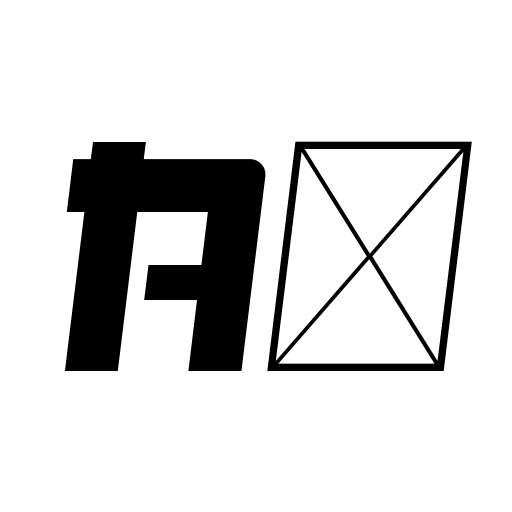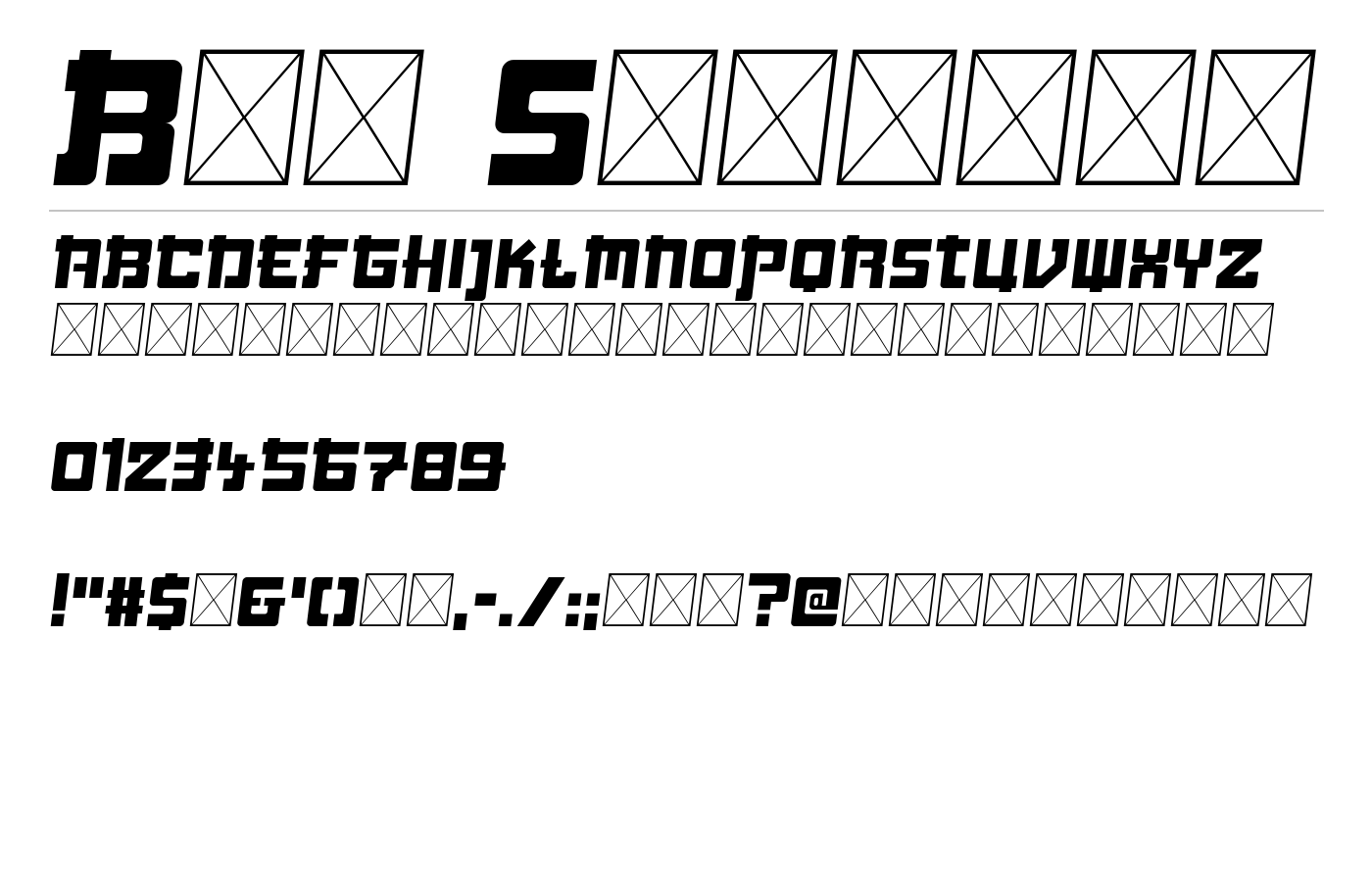
Big Samurai is a bold, condensed sans serif font with a strong, geometric style and sharp edges that convey a futuristic and dynamic feel. Its high-impact, sporty letterforms make it ideal for headlines, logos, and branding projects that aim to communicate power, energy, and modernity. This font works especially well in contexts like sports, gaming, and tech, where a striking and assertive visual presence is needed.
Big Samurai Font
About Big Samurai Font
| Font family | Big Samurai Font |
| Designer | imagex |